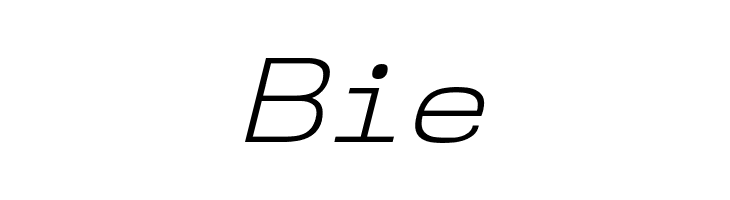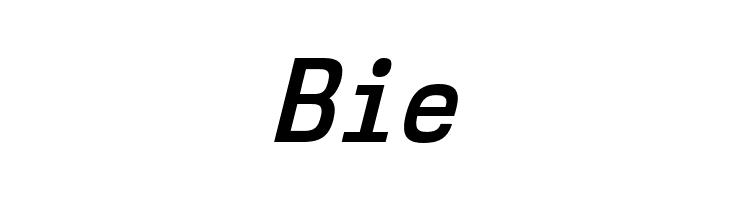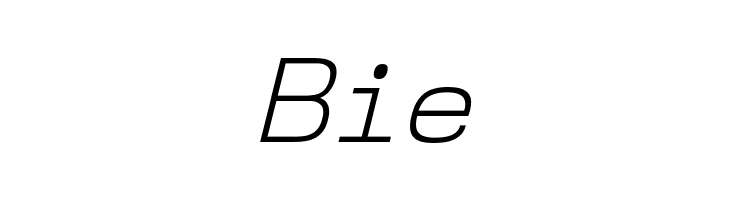
A bold, monospaced font with a modern, industrial style.
A modern, monospaced font with a clean and condensed design.
A modern, monospaced font with geometric precision and uniform character spacing.
A modern, monospaced italic font with clean lines and uniform spacing.
A modern, monospaced italic font with a sleek and professional look.
A modern, monospaced font with uniform spacing and geometric design.
A modern, monospaced font with a clean, geometric design and uniform stroke widths.
A modern, light, italic monospaced font with even spacing and sleek design.
A modern, monospaced font with geometric shapes and uniform spacing.
A modern, monospaced font with bold, clear characters for enhanced readability.